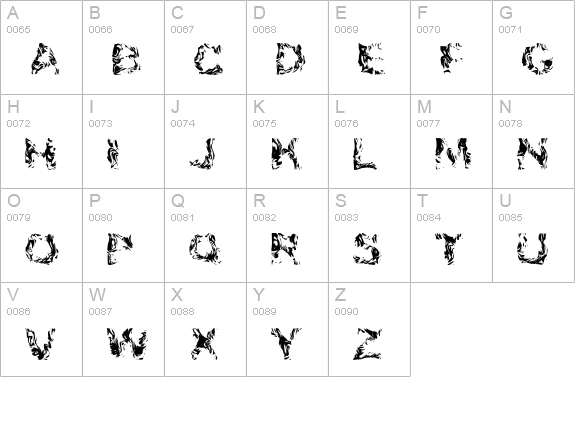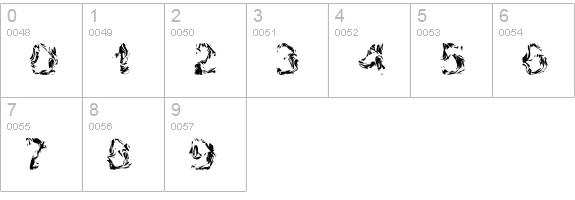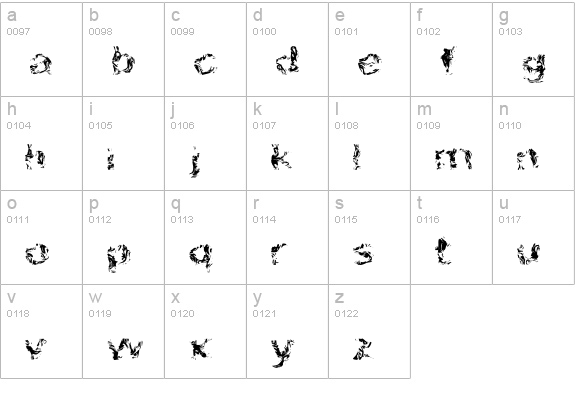
Apokalypto Font Details
Apokalypto font is a stunning display typeface that exudes a sense of mystery and exotic charm. With its intricate and ornate design, this font is sure to make a bold statement in any creative project. Featuring intricate details and unique styling, Apokalypto font is perfect for adding a touch of whimsy and sophistication to your designs. What sets Apokalypto font apart is its versatility - it can be used for a wide range of projects, from branding and packaging to posters and social media graphics. Whether you're looking to add a touch of elegance to your wedding invitations or create eye-catching headlines for your website, Apokalypto font is sure to impress. And the best part? Apokalypto font is available for free download at FontsMarket.com. So go ahead and unleash your creativity with this captivating typeface that is bound to leave a lasting impression on your audience.